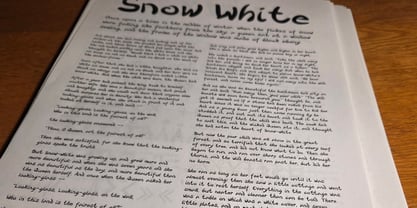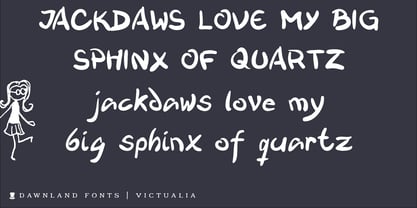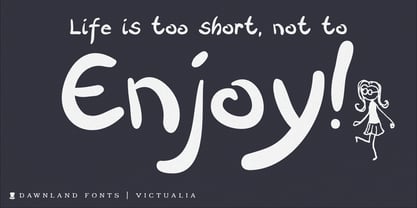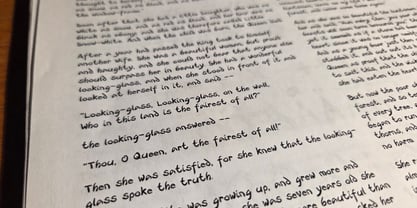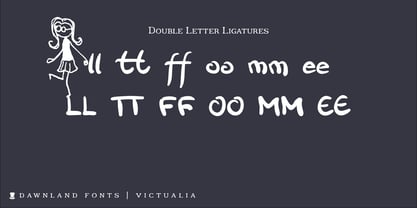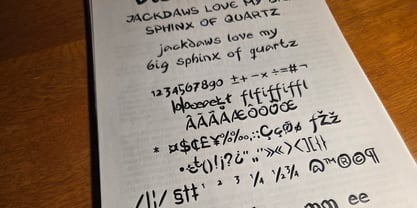
Victualia
by Dawnland
The Victualia Font Family was designed by Daniel Viberg and published by Dawnland. Victualia contains 1 styles.
Victualia - casual, hand drawn (Wacom, illustrator) brush font. "Ligatures" have been created for some double letters to enhance the illusion of handwritten text. (TT, tt, ff, oo, OO, mm, MM, ll & LL - open type version of the font and open type compatible layout application required). Victualia was initially created in 2005 as part of a course that I attended to
At Berghs
, but has now been given a face lift as well as a full set of special characters.
Creating visual experiences since 1999, Dawnland – Daniel Viberg – works with identity, lettering, fonts, and illustration. Daniel is a graphic designer with a vivid interest in graphic storytelling, which won’t go unnoticed in his productions. This has resulted in a lot of imaginative illustrations, as well as cards and games. His inspiration comes from Swedish folklore and music, from books, films and stories, as well as from all the members of his family. The recent years Daniel has evolved to further embrace the crafting of letters by hand, pens and paper.